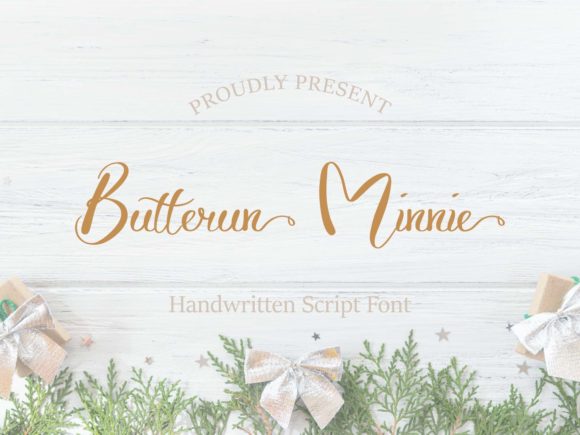
Prepare to be captivated by the Butterun Minnie font, a whimsical masterpiece that will transform your creative visions into extraordinary realities. Its enchanting characters, reminiscent of a graceful ballet, dance effortlessly across the screen, exuding a playful charm that is simply irresistible.
Immerse yourself in a world where imagination thrives and creativity knows no bounds. The Butterun Minnie font breathes life into your designs, adding a touch of magic to every word you write. Let its graceful curves and playful shapes ignite your passion and inspire you to create masterpieces that will steal the show.
Beyond its aesthetic appeal, the Butterun Minnie font is a versatile workhorse, effortlessly adapting to a myriad of creative endeavors. Whether you're crafting captivating social media posts, designing stunning logos, or adding a touch of whimsy to your website, this font will seamlessly elevate your creations.
Elevate your branding with the Butterun Minnie font. Its unique and enchanting style will set your business apart, leaving a lasting impression on your customers. Its playful nature will resonate with audiences of all ages, creating a connection that goes beyond mere aesthetics.
Unleash your creativity and let the Butterun Minnie font guide you on an extraordinary journey. From playful invitations to enchanting social media posts, every project you undertake will be imbued with a touch of magic. Embrace the power of this exquisite font and watch as your creative visions soar to new heights.
With Butterun Minnie by your side, the possibilities are endless. Let your imagination run wild and witness the transformative power of a font that will turn your creative dreams into breathtaking realities.